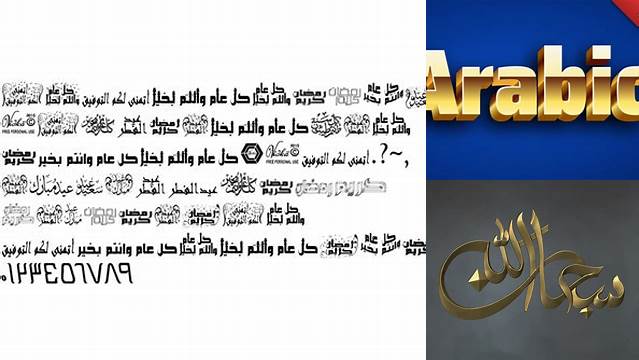
Free 3D Arabic Font TTF Download Guide
Hey there, design enthusiasts! Are you ready to dive into the world of 3D Arabic fonts? If you're looking for a way to spice up your projects with a touch of elegance and cultural flair, you're in the right place. This article is your ultimate guide to finding and using free download TTF files for stunning 3D Arabic fonts. We'll explore where to find these gems, how to use them effectively, and some cool tips to make your designs pop. So, grab a coffee, get comfy, and let's get started!
The Allure of 3D Arabic Fonts
Let's be honest, guys – typography can make or break a design. And when it comes to adding a unique and eye-catching element, 3D Arabic fonts are seriously hard to beat. The intricate curves, the flowing lines, and the sheer artistry of Arabic script are already incredibly beautiful. But when you add a 3D effect, you take it to a whole new level. Imagine your designs with depth, dimension, and a touch of opulence. Sounds amazing, right? That's the magic of 3D Arabic fonts. These fonts are perfect for a wide range of projects. From branding and logos to posters, invitations, and even digital art, 3D Arabic fonts can elevate your work and make it stand out from the crowd. They're especially effective for projects that aim to capture a sense of cultural richness, luxury, or artistic expression. Furthermore, 3D Arabic fonts can be used creatively for projects such as creating unique social media posts, designing eye-catching website headers, or producing impressive print materials. The versatility of these fonts opens up endless possibilities for designers and creatives. Using 3D Arabic fonts is also a great way to celebrate the beauty of Arabic culture and language. Each glyph tells a story, and with the added dimension of 3D, these stories come alive. Using these fonts is not only a way to enhance your designs, but also a way to honor and promote cultural appreciation.
When you choose a 3D Arabic font, you're not just selecting a typeface. You're choosing a piece of art. The best 3D Arabic fonts are meticulously crafted, often with a focus on detail and aesthetic appeal. Many designers spend countless hours perfecting the curves, shadows, and highlights of each glyph to ensure a visually stunning outcome. These fonts offer a unique blend of traditional calligraphy with modern design, making them perfect for modern projects. The use of 3D Arabic fonts adds a touch of sophistication and cultural pride to any design. Moreover, using these fonts gives a distinctive look and feel to your designs, setting them apart from the typical Western typography. Whether you're a seasoned designer or just starting, the allure of 3D Arabic fonts is undeniable. They bring a level of sophistication and visual interest that can make your designs truly memorable. So, if you are looking to take your design to the next level, look no further than 3D Arabic fonts. With the right font, your projects will be a conversation starter.
How to Use 3D Arabic Fonts in Your Projects
So, you've found and downloaded your free 3D Arabic font TTF file? Awesome! Now, let's get to the fun part: actually using them in your designs. Here's a step-by-step guide to help you get started, along with some creative ideas. Whether you are a beginner or a seasoned designer, here are some tips to get you started. Make sure to follow these steps so you can produce high-quality results.